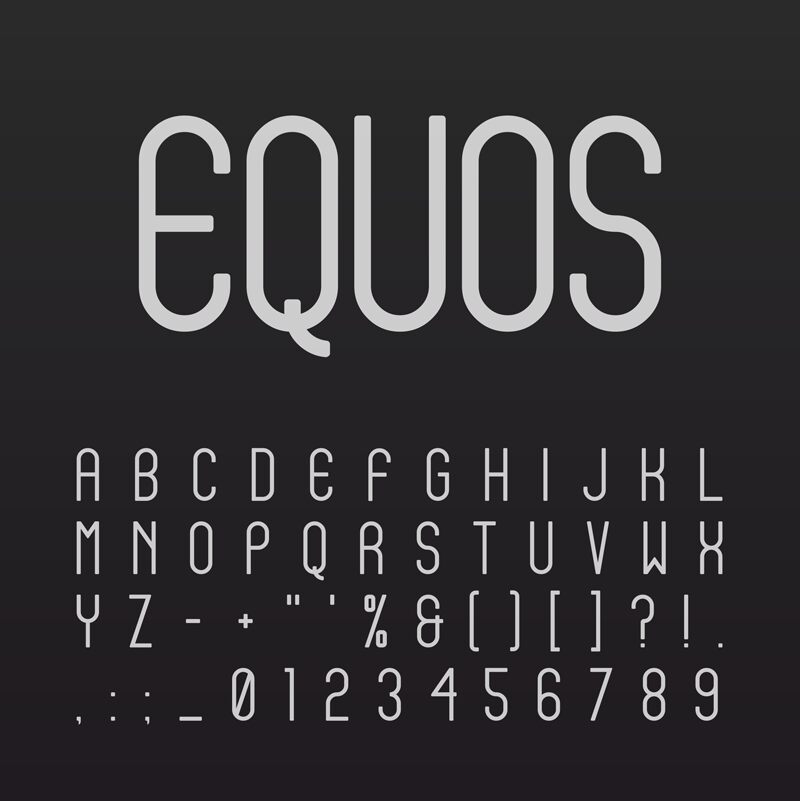
EQUOS FONT
EQUOS FONT, designed by Cesare Vagnoni, is a modern sans serif font that boasts a semi-light weight and condensed width. Its sleek and sophisticated design makes it the perfect choice for any project that requires a professional touch. From branding and logo design to editorial layouts and web design, EQUOS FONT will elevate your work to new heights. Its clean lines and minimalistic style create an air of elegance that is sure to impress. Whether you're designing for print or digital media, EQUOS FONT has got you covered. Give your work the edge it deserves with this stunning typeface.